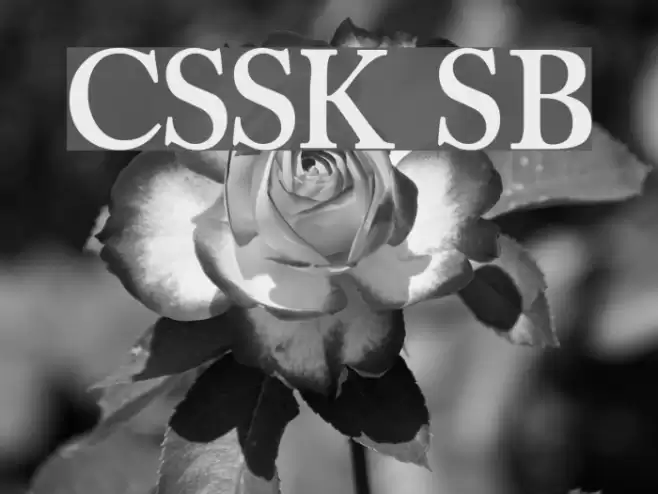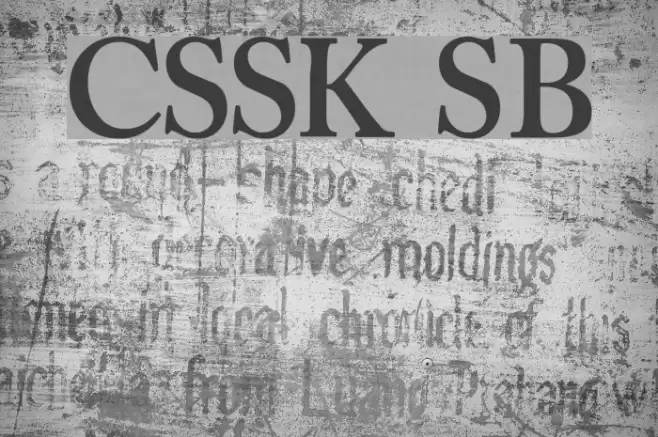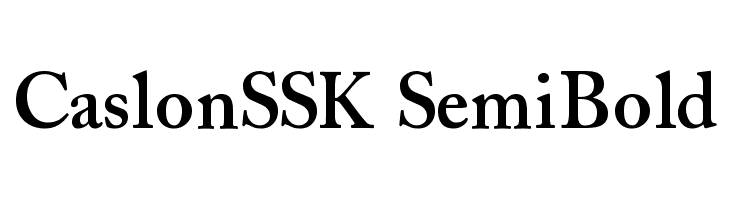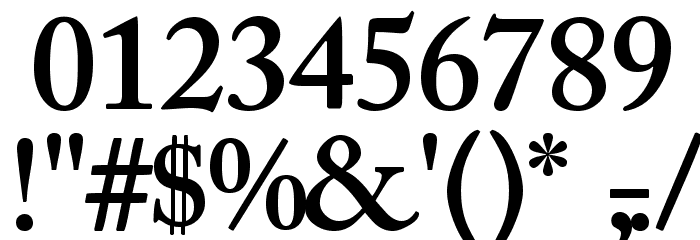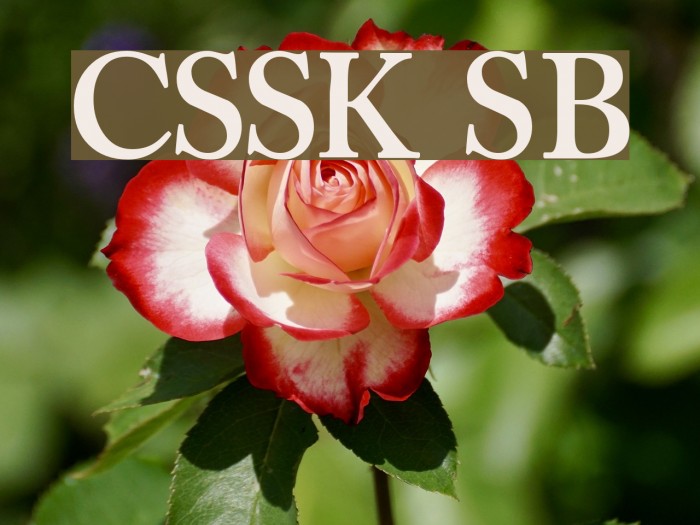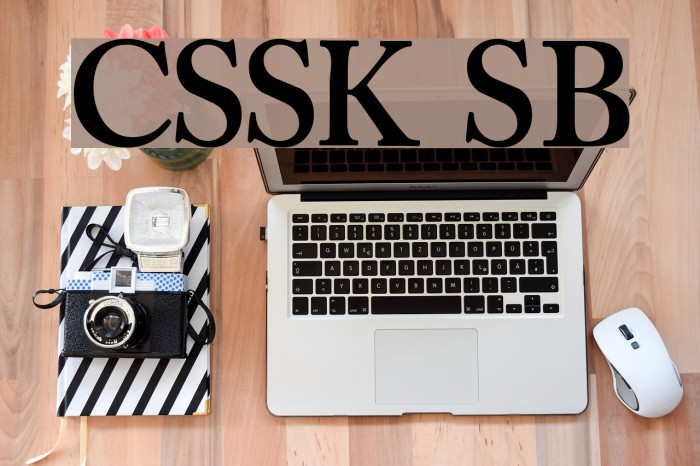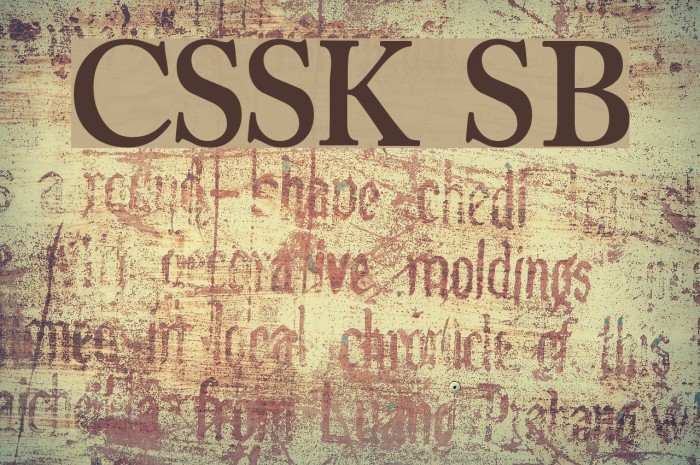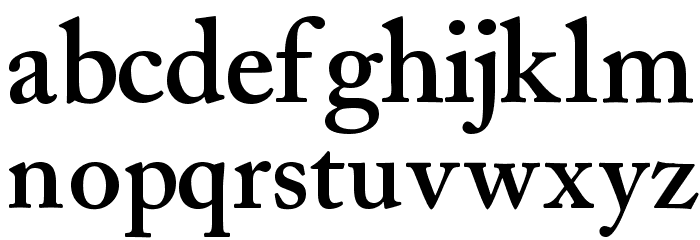
CaslonSSK SemiBold Font
CaslonSSK SemiBold Description
This font exhibits a classic serif style with a semi-bold weight, providing a strong yet elegant appearance. The serifs are pronounced, giving it a traditional and authoritative feel. The uppercase letters are well-proportioned with a slight contrast in stroke thickness, enhancing readability. The lowercase characters maintain a consistent style with rounded edges and clear distinctions between each letter. Numerals are designed with clarity and balance, making them suitable for both text and display purposes. Special characters are crafted with attention to detail, ensuring they complement the overall aesthetic of the font.
A classic serif font with semi-bold weight, offering elegance and readability from Uncategorized fonts.
- Overall Style: Classic